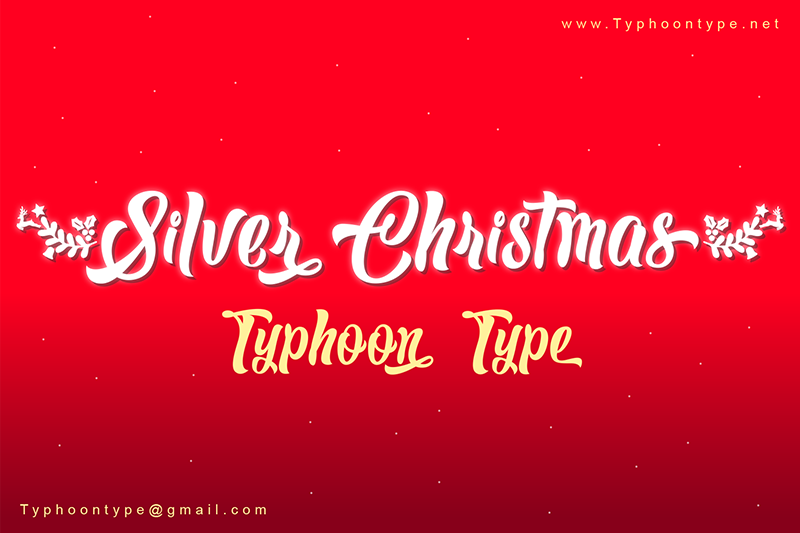
Type { before word to get beginning Christmas Swash and Type } after word to get the ending Christmas Swash. Example : {Silver Christmas} ���������������������������� How to get Christmas Swash and Alternate Glyphs on Silver Christmas font with Illustrator https://youtu.be/xGPhg4OOIxE ���������������������������� Hello, please contact me before using my fonts for commercial purposes. My fonts are only permitted for free use in personal, non-profit, and charity projects. If you intend to make money from using my fonts, please purchase a commercial license here here : http://www.typhoontype.net/fonts/Silver-Christmas/ https://www.creativefabrica.com/product/silver-christmas/ref/179938/ Typhoon Type� - Suthi Srisopha� ��������������� typhoontype@gmail.com� http://www.typhoontype.net |